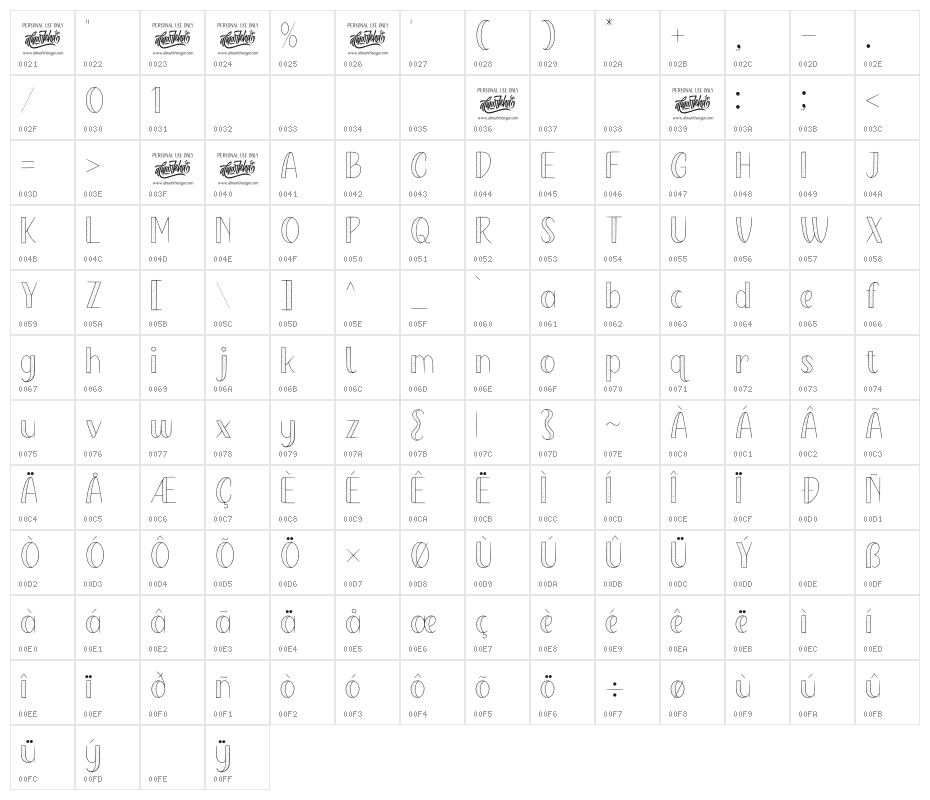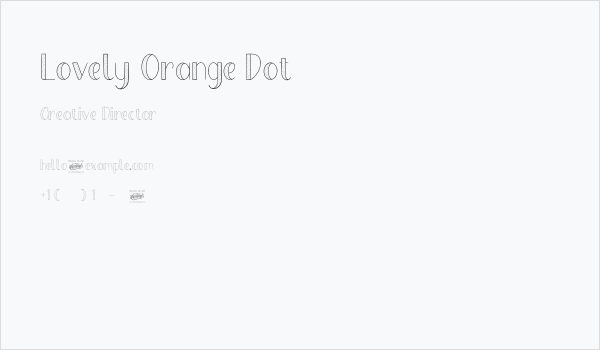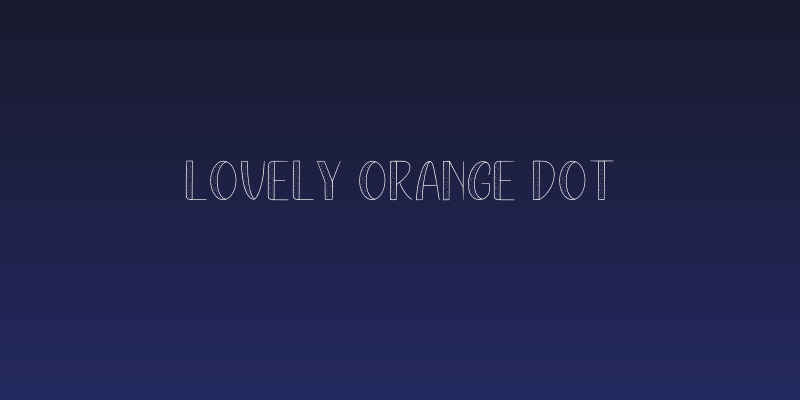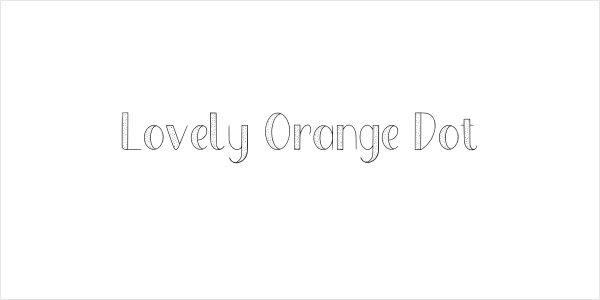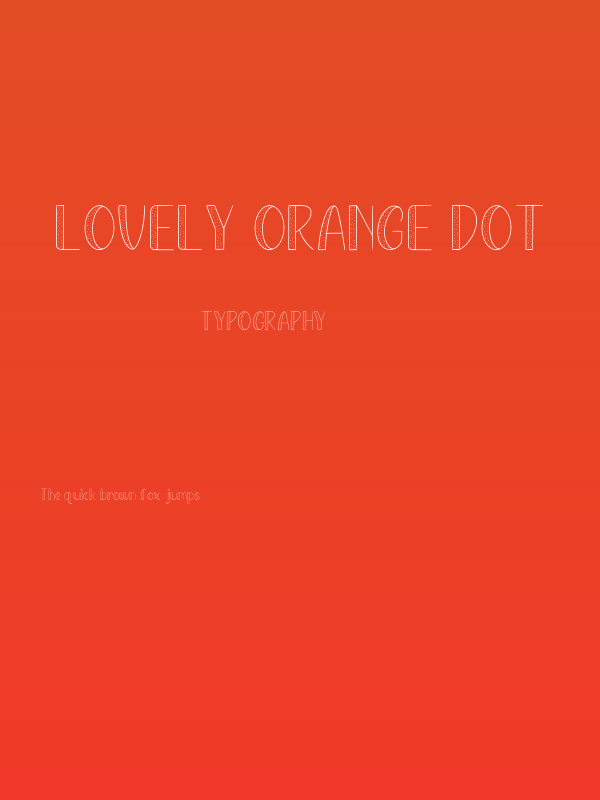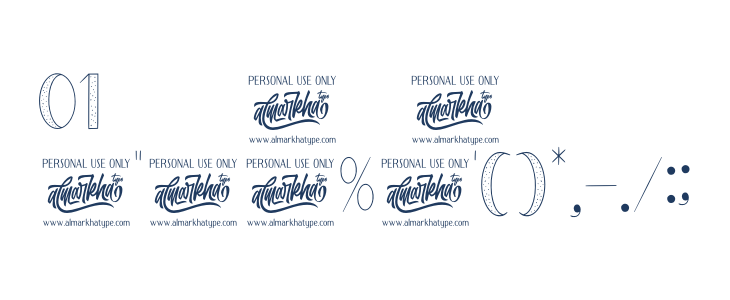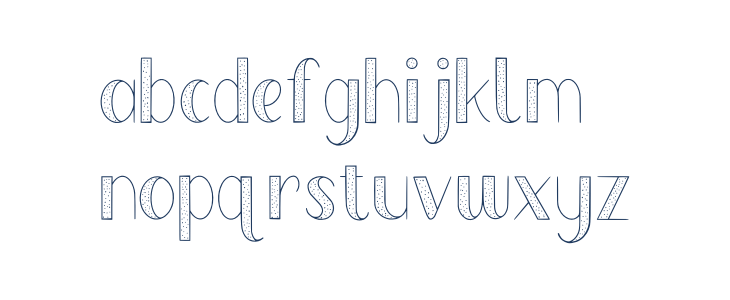
Lovely Orange Dot Font
Lovely Orange Dot Description
This playful and decorative font features a unique dotted pattern within each character, adding a whimsical touch to its overall appearance. The letters are tall and slightly narrow, with a consistent stroke width that gives it a clean and modern look. The uppercase and lowercase letters maintain a cohesive style, while the numbers and special characters complement the alphabet with similar design elements. The font's dotted texture provides a sense of fun and creativity, making it ideal for projects that require a lighthearted and artistic flair.